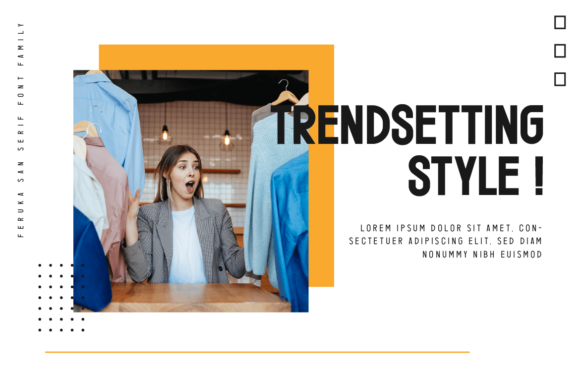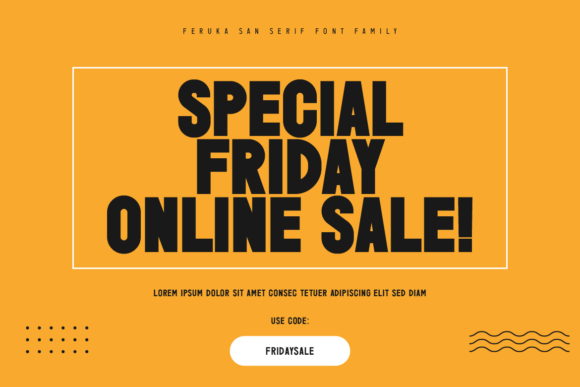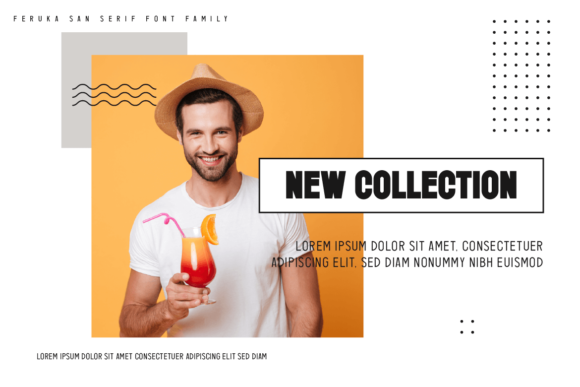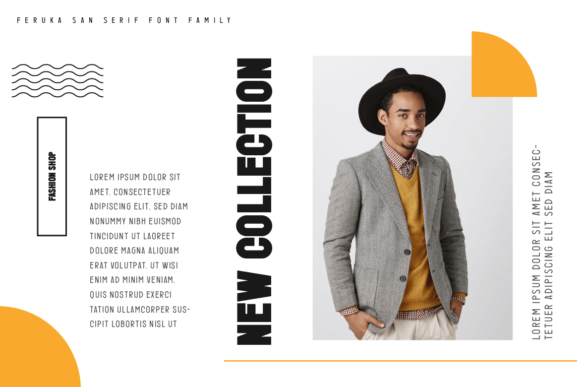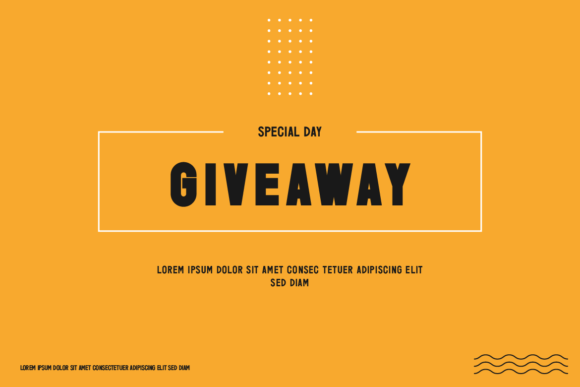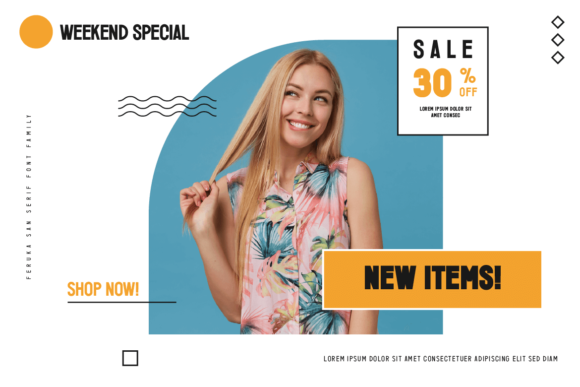
The Moment of Creative Clarity
Have you ever been stuck in a design rut, staring at a blank canvas with no idea where to start? That’s where the magic of typography comes in – the perfect font can elevate an entire design and transport you to a world of creative possibilities. For many designers, that magic moment often begins with a bold, eye-catching font that sets the tone for the entire project.
Enter the Feruka Font, a game-changing sans serif font that’s perfect for adding a unique touch to your web designs, business cards, or any other project that needs a little extra oomph. With its thick, bold letters, Feruka Font is the perfect solution for designers looking to make a statement and leave a lasting impression.
Feruka Font Key Features
- Font Family: Feruka Font is a unique, modern sans-serif font family designed for digital use.
- Font Size: The font family includes 12 styles, ranging from 100 to 900, providing flexibility for various design applications.
- Resolution: Designed for high-resolution displays (Retina and 4K) with clear readability at small font sizes.
- Language Support: Supports a wide range of languages, including Latin, Cyrillic, and Greek scripts.
- Unique Characteristics: Features a distinctive, geometric design with a friendly and approachable feel, making it suitable for branding and digital applications.
Feruka Font Review
Feruka Font is a beautiful and unique typeface that caught my attention with its quirky style and charm. Here are some aspects where it truly shines: ✨
- Playful and whimsical feel that makes it perfect for creative projects.
- High-quality, detailed design that showcases the care and attention to detail from the creator.
- Perfect for use in various contexts, including digital and print media.
However, there are some limitations to consider: ⚠️
- Some letters may be difficult to read at small font sizes due to the intricate design.
- The font may not be suitable for use in formal or professional contexts, due to its playful nature.
- It may require some experimentation to find the right settings for optimal readability.
Overall, I think Feruka Font is a great addition to any designer’s toolkit. It’s perfect for projects that require a touch of whimsy and personality. With some careful consideration of its limitations, it can add a unique and charming touch to any design.
Feruka Font Practical Application Guide
Tips for Getting the Most Out of Feruka Font
Experiment with different font sizes, colors, and styles to achieve a unique look. Combine Feruka Font with other design elements to create visually appealing compositions.
Feruka Font is ideal for creative projects, such as logos, posters, and infographics. Its unique design makes it perfect for adding a touch of elegance to digital and print materials.
Alternatives to Feruka Font
Raleway
Raleway is a popular sans-serif font that is clean, elegant, and highly legible. It is suitable for use in headings and body text, and is a good choice for websites and digital applications. Compared to Feruka Font, Raleway has a more modern feel and a wider range of weights and styles.
Lato is a sans-serif font that is highly legible and versatile. It is suitable for use in a wide range of applications, from body text to headings, and is a good choice for websites, digital applications, and print materials. Compared to Feruka Font, Lato has a more modern feel and a wider range of weights and styles.
Montserrat is a sans-serif font that is highly legible and versatile. It is suitable for use in a wide range of applications, from body text to headings, and is a good choice for websites, digital applications, and print materials. Compared to Feruka Font, Montserrat has a more urban feel and a wider range of weights and styles.